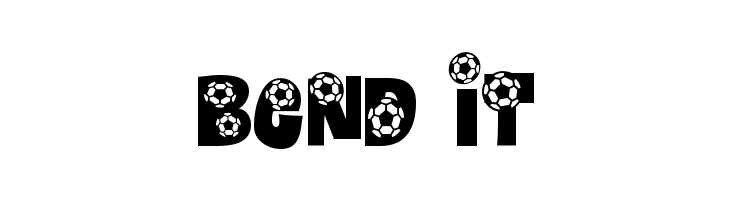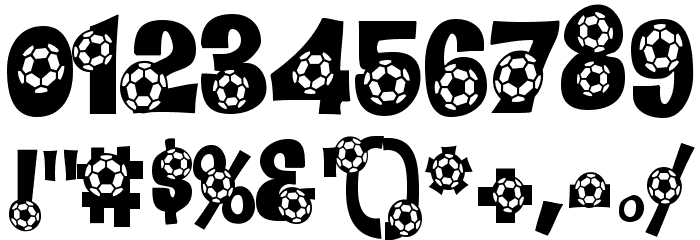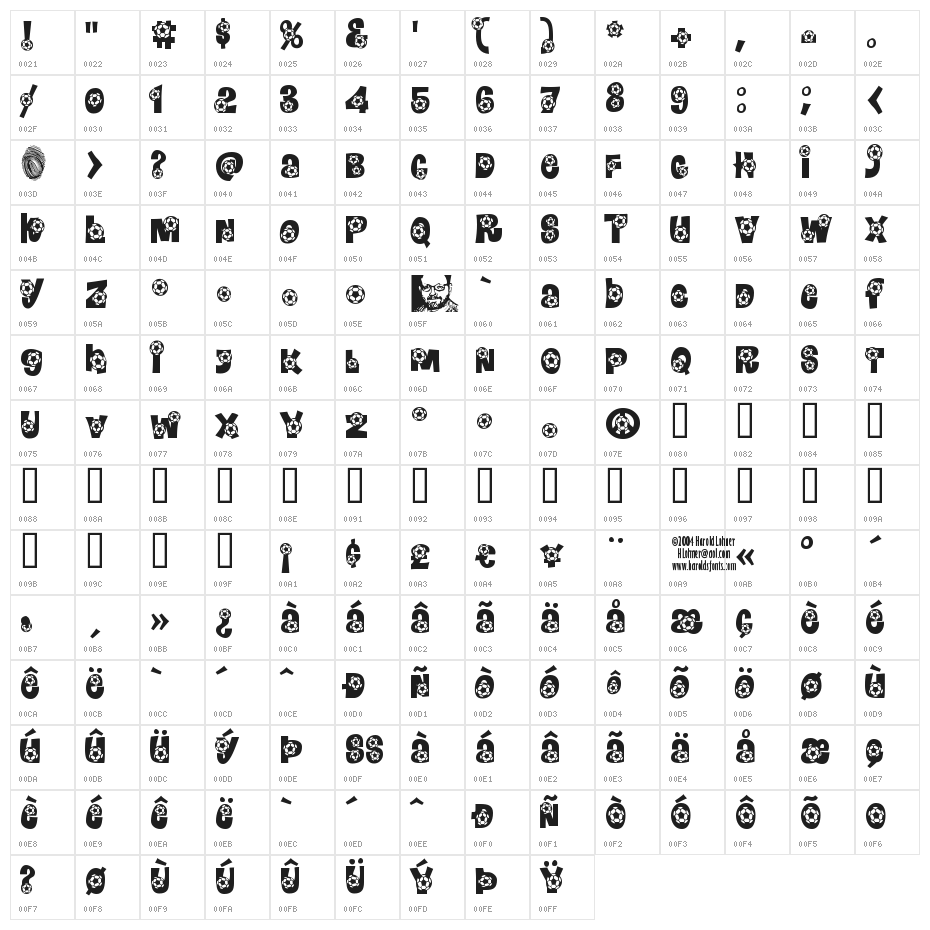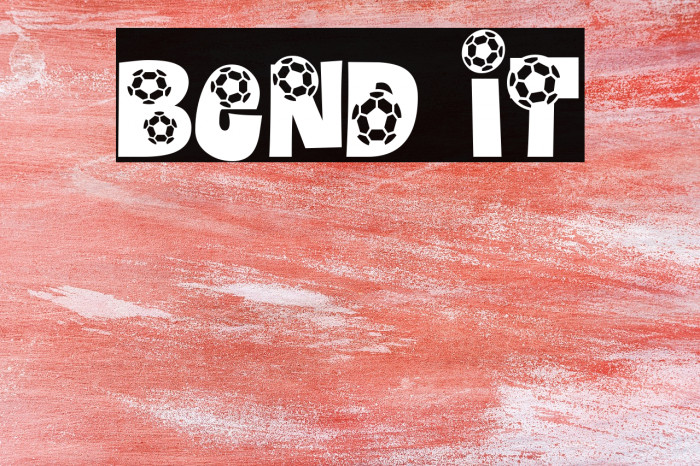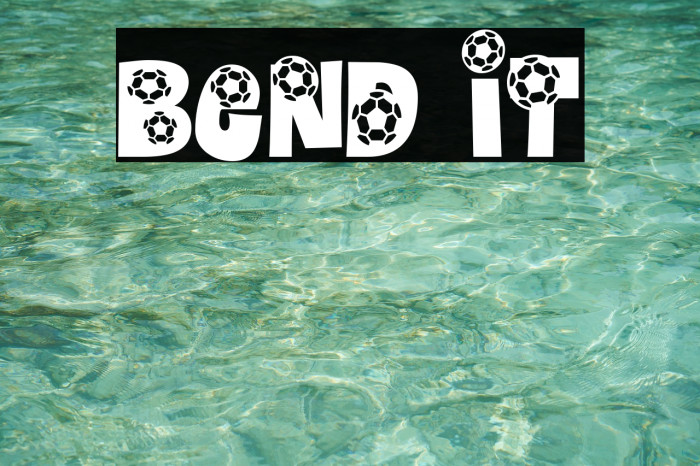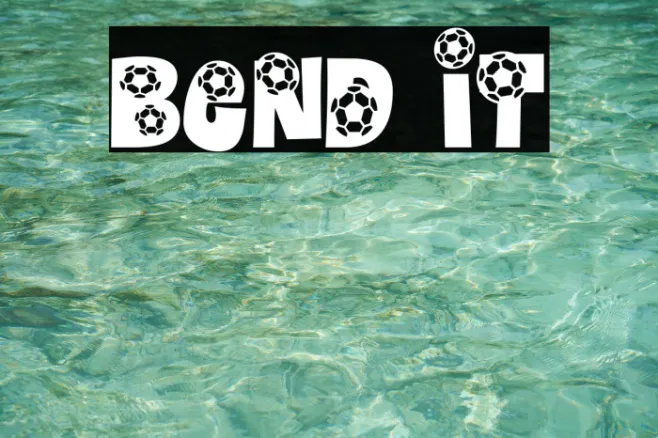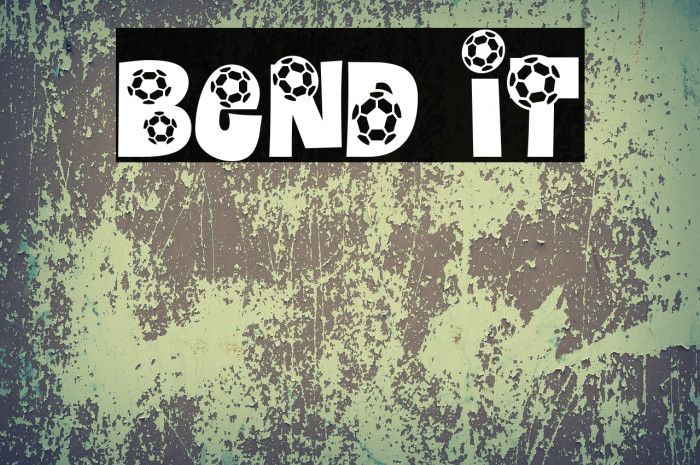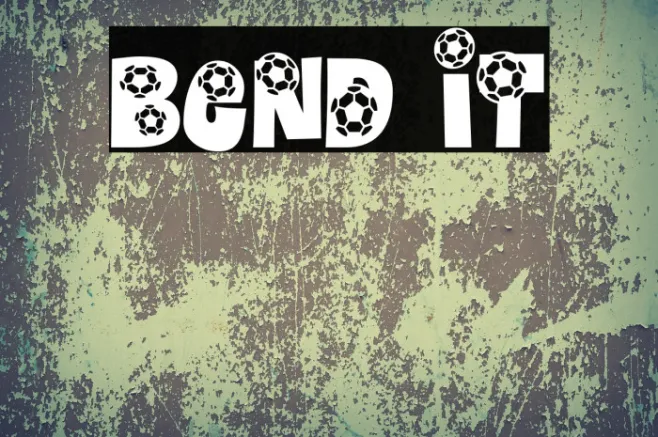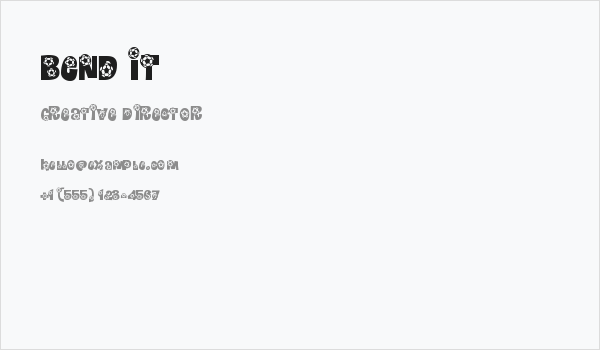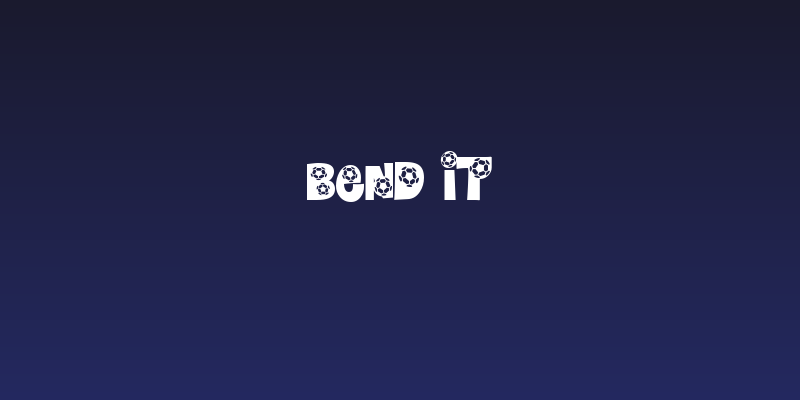
Bend It Font
Bend It Description
This playful and dynamic font features bold, rounded characters with a unique soccer ball pattern integrated into each letter and number. The design is eye-catching and energetic, making it ideal for sports-related themes. The characters are well-spaced, ensuring readability while maintaining a fun and engaging appearance. The font's distinctive style is perfect for capturing attention and conveying a sense of movement and excitement.
| Overall Style | Playful, Sporty |
| Proposed Projects | Perfect for sports event posters, children's sports team logos, playful merchandise, and themed party invitations. |